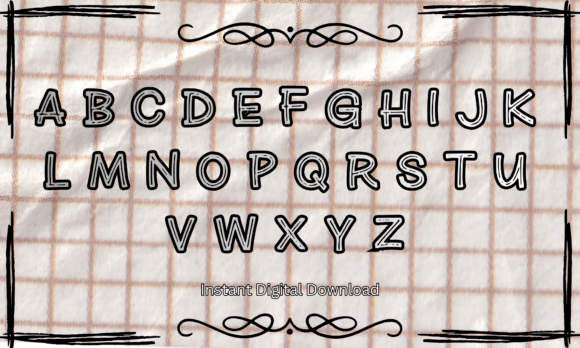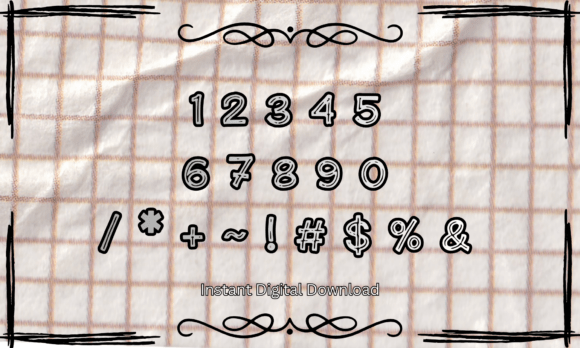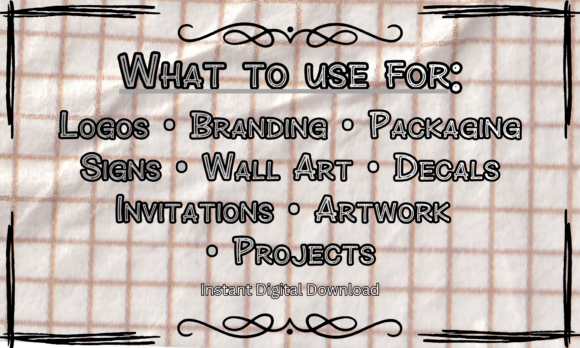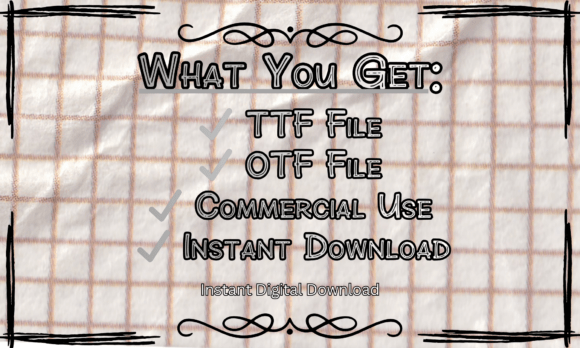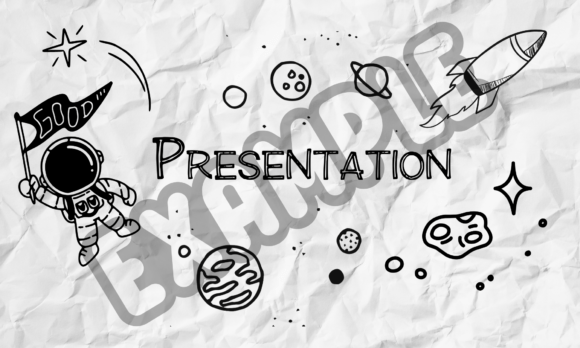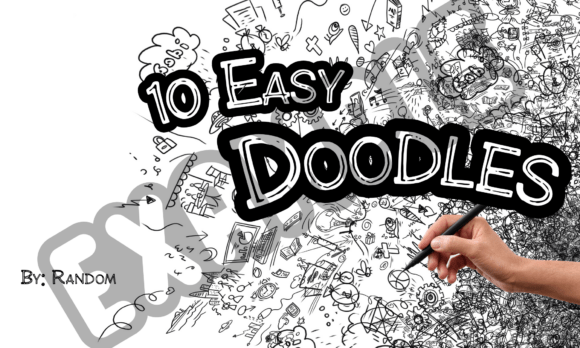
Add Playful Charm to Your Designs with Doodle Letter Font
Are you looking for a font that can add a touch of playfulness and whimsy to your designs? Look no further than Doodle Letter Font! This hand-drawn style font is inspired by notebook sketches, casual handwriting, and creative doodles, making it perfect for designers and crafters who want to add a personal touch to their projects.
What is Doodle Letter Font?
Doodle Letter Font is a unique and charming font that features imperfect lines and a cozy, artsy feel. It’s designed to mimic the look of handwritten notes and doodles, giving your projects a friendly and handmade appearance. This font is perfect for a variety of design projects, including planners, stickers, classroom materials, journals, and creative branding.
Doodle Letter Font is a versatile font that can be used in a variety of design projects. Here are some of the perfect applications for this font:
- Planner stickers & inserts: Add a playful touch to your planner with custom stickers and inserts featuring Doodle Letter Font.
- Journals & notebooks: Create unique and personalized journals and notebooks with this charming font.
- Classroom resources: Make learning fun with educational materials featuring Doodle Letter Font.
- Kids designs: Create fun and engaging designs for kids, such as stickers, coloring pages, and activity sheets.
- Stickers & decals: Design custom stickers and decals with Doodle Letter Font for a variety of applications.
- Sublimation projects: Use Doodle Letter Font to create unique sublimation projects, such as custom mugs, t-shirts, and tote bags.
- Social media graphics: Add a playful touch to your social media graphics with this fun and quirky font.
- Casual logos & branding: Use Doodle Letter Font to create a unique and memorable logo or brand identity.
Why Choose Doodle Letter Font?
There are many reasons why you should choose Doodle Letter Font for your design projects. Here are a few:
- Unique and playful style: Doodle Letter Font has a unique and playful style that’s sure to add a touch of whimsy to your designs.
- Hand-drawn look: This font has a hand-drawn look that’s perfect for designers and crafters who want to add a personal touch to their projects.
- Imperfect lines and cozy feel: The imperfect lines and cozy feel of Doodle Letter Font make it perfect for creating friendly and approachable designs.
- Versatile: This font is versatile and can be used in a variety of design projects, from planners and stickers to social media graphics and logos.
If you’re looking for a font that can add a touch of playfulness and whimsy to your designs, look no further than Doodle Letter Font. With its unique and playful style, hand-drawn look, and imperfect lines and cozy feel, this font is perfect for designers and crafters who want to add a personal touch to their projects. Whether you’re creating planners, stickers, classroom materials, journals, or social media graphics, Doodle Letter Font is a great choice.